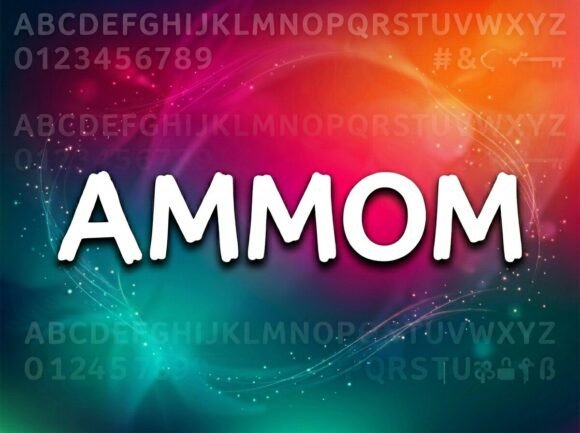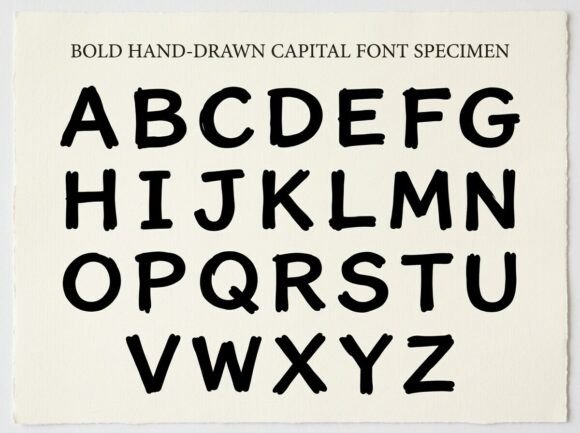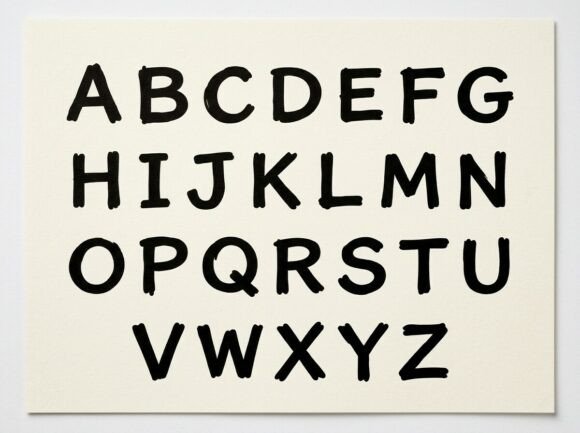
Introducing Ammom Font: The Ultimate Display Font for Creators
Are you tired of using the same old fonts for your designs? Do you want to make a statement and stand out from the crowd? Look no further than Ammom Font, a stunning decorative display font that’s designed to be the center of attention. With its unique artistic elements and strong visual personality, this font is perfect for creators who want to break away from the ordinary and take their designs to the next level.
What Makes Ammom Font Special?
Ammom Font is a versatile font that’s perfect for a variety of design projects, from bold headlines and artistic logos to creative packaging. Despite its decorative nature, this font maintains a professional and polished finish, making it suitable for use in a range of applications. Whether you’re a graphic designer, a crafty DIY enthusiast, or a marketing professional, Ammom Font is sure to impress.
Key Features of Ammom Font
- Unique Artistic Elements: Ammom Font features unique artistic elements that set it apart from other fonts. Each letter is carefully crafted to make a statement and add visual interest to your designs.
- Strong Visual Personality: This font has a strong visual personality that’s sure to grab attention. Whether you’re using it for a headline, logo, or packaging, Ammom Font is sure to make an impact.
- Versatile: Despite its decorative nature, Ammom Font is versatile enough to be used in a range of applications, from bold headlines to creative packaging.
- Professional and Polished: This font maintains a professional and polished finish, making it suitable for use in a range of professional applications.
IMPORTANT NOTE BEFORE PURCHASE: Ammom Font is an ALL-CAPS (Uppercase Only) display typeface. It does not include lowercase letters. This font is specifically designed for high-impact headlines, logos, and decorative initials where every letter is a work of art.
Why Ammom Font is Perfect for Designers and Crafters
Ammom Font is perfect for designers and crafters who want to add a touch of elegance and sophistication to their work. With its unique artistic elements and strong visual personality, this font is sure to make a statement and set your designs apart from the crowd.
- Headlines: Use Ammom Font to create bold and eye-catching headlines for your blog posts, articles, or marketing materials.
- Logos: Create a stunning logo for your business or brand using Ammom Font.
- Packaging: Use Ammom Font to add a touch of elegance and sophistication to your packaging designs.
- DIY Projects: Add a personal touch to your DIY projects, such as scrapbooking, card making, or crafting, with Ammom Font.
In conclusion, Ammom Font is a stunning decorative display font that’s perfect for creators who want to make a statement and stand out from the crowd. With its unique artistic elements, strong visual personality, and versatility, this font is sure to impress. Whether you’re a designer, crafter, or marketing professional, Ammom Font is a great addition to your font collection.